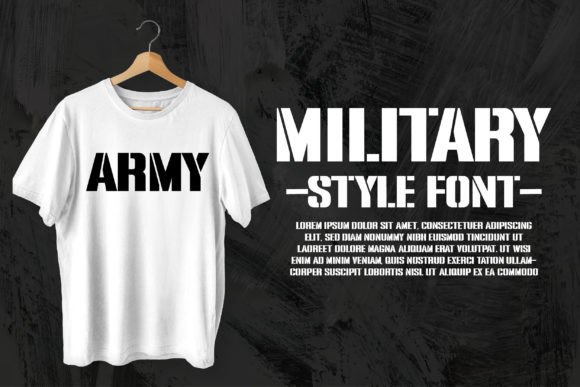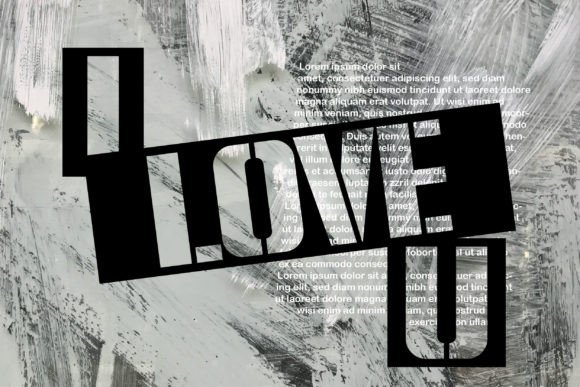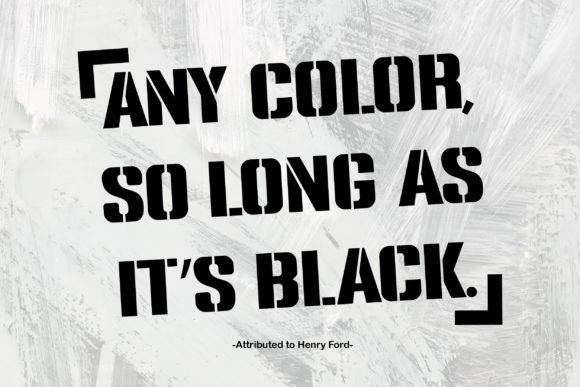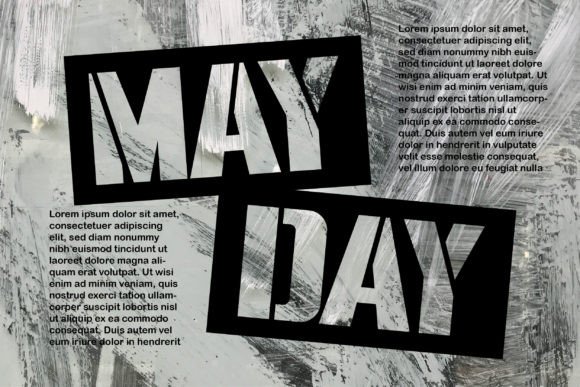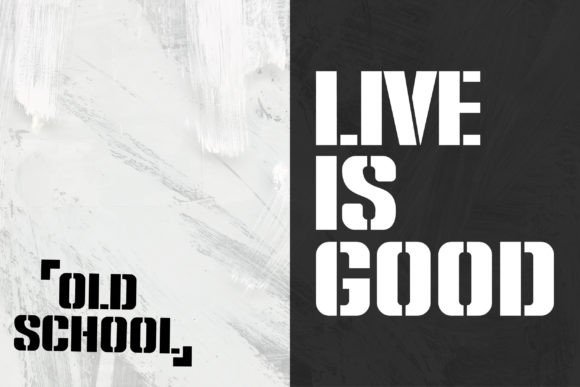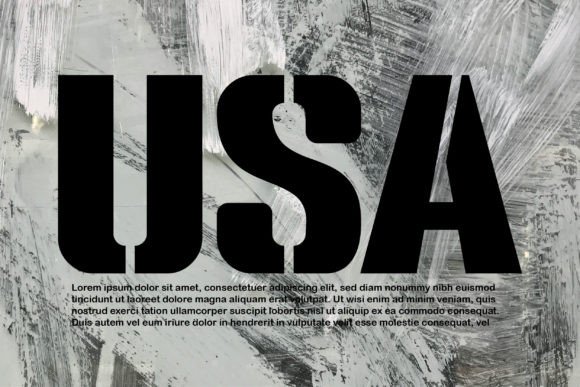
Discover the Power of Black Stencil Font
Have you ever been scrolling through a design website or social media and stumbled upon a font that immediately caught your attention? For me, it’s always the ones that exude a bold, edgy vibe that make me stop and take notice. And that’s exactly what happens when you come across the Black Stencil Font.
This captivating collection of stencil-style fonts is designed to turn heads and make a statement. With both a regular and a grunge version, you have the creative freedom to craft distinctive designs that reflect your unique style. Whether you’re a seasoned designer or just starting out, the Black Stencil Font is a valuable addition to your toolkit.
Perfect for applications with a militant edge, this font effortlessly adds a touch of authority to any project it graces. From logos and small business branding to t-shirt designs, book covers, and stationery, the Black Stencil Font is a versatile and innovative tool that will help you amplify your marketing efforts and set your brand apart.
Black Stencil Font Key Features
- Font Type: Stencil font, known for its bold and geometric design
- Unique Characteristics: Distinctive stencil design with bold lines and a modern aesthetic, suitable for use in headings, titles, and logos
- Font Style: Available in regular and bold weights, allowing for a range of design options
Designer Review: Black Stencil Font
Overall, I think the Black Stencil Font is a solid choice for those looking for a bold, edgy aesthetic. Here are some of its strengths:
- ✨ Unique and eye-catching design: The Black Stencil Font’s bold lines and sharp edges make it perfect for adding a touch of sophistication to your designs.
- ✨ Versatile: It can be used for a variety of purposes, from logos and branding to packaging and advertising.
- ✨ Easy to read: Despite its bold appearance, the font is surprisingly easy to read, making it a great choice for body text.
- ⚠️ Limited expressiveness: The Black Stencil Font’s bold design can make it difficult to convey subtle emotions or tone.
- ⚠️ May not be suitable for small text: The font’s bold lines can make it difficult to read when used in small sizes.
- ⚠️ Not ideal for body text: While the font is easy to read, it may not be the best choice for large blocks of text due to its bold appearance.
Overall, I think the Black Stencil Font is a great choice for designers looking to add a touch of sophistication and edge to their designs. However, it’s not a one-size-fits-all solution, and it’s essential to consider its limitations before using it in your projects.
Black Stencil Font is ideal for creating bold, eye-catching headlines and titles. It’s commonly used in:
- Graphic designs and posters.
- Marketing materials and flyers.
- Product packaging and branding.
Alternatives to Black Stencil Font for Designers
Arial Black is a sans-serif font known for its bold and clean appearance. It’s ideal for use in headings, titles, and short paragraphs where a strong visual impact is desired. Unlike Black Stencil Font, Arial Black is more elegant and has a less aggressive feel, making it suitable for a wide range of applications, including corporate branding and advertising.
Impact is a sans-serif font that’s designed to be highly legible, even at small font sizes. It’s perfect for use in headings, titles, and short paragraphs where a bold and attention-grabbing effect is needed. While Impact shares a similar boldness with Black Stencil Font, it has a more geometric and modern feel, making it suitable for use in digital media and online applications.
3. Agency FB
Agency FB is a sans-serif font that’s designed for use in headings and titles. It’s known for its bold and modern appearance, making it ideal for use in corporate branding, advertising, and digital media. Unlike Black Stencil Font, Agency FB has a more refined and sophisticated feel, making it suitable for use in high-end applications and luxury brands.